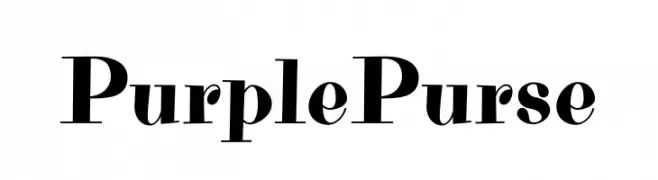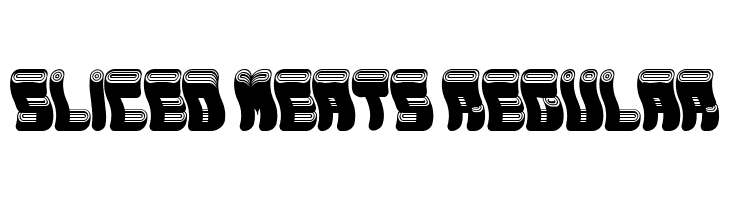
( Fonts by Astigmatic )
A classic serif font with high contrast and elegant serifs.
A bold, decorative font with a 3D shadow effect and geometric structure.
A bold, decorative font with intricate geometric patterns.
A bold, decorative font with a 3D shadow effect and striped pattern.
A bold, three-dimensional font with a shadow effect, ideal for impactful headlines.
A bold, three-dimensional font with a strong, authoritative style.
A bold, military-inspired font with strong outlines and a stencil-like appearance.
A bold, decorative font with uppercase letters in circular borders, offering a vintage, industrial feel.
A bold, 3D shadow font with a vintage yet modern appeal.
Bold, italicized font with a three-dimensional shadow effect.